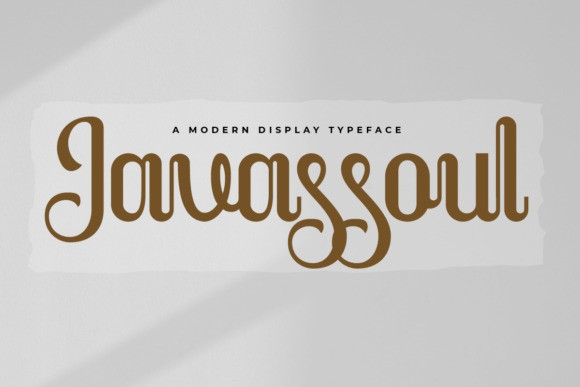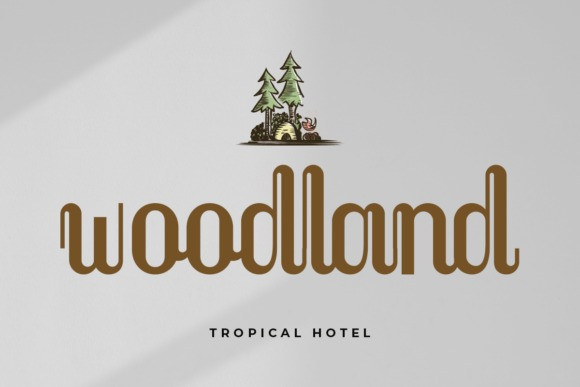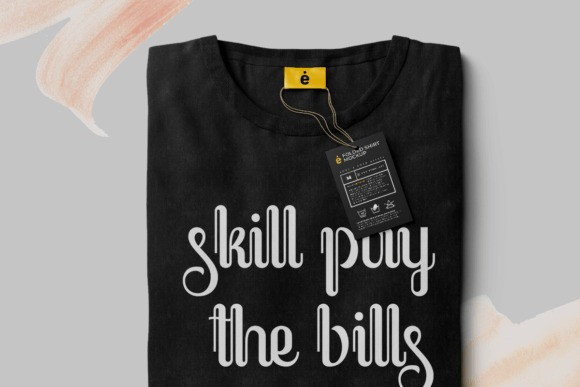
Javassoul Font
Javassoul is a very elegant and unique display font perfect for branding, logos, invitation, cards, headlines, magazines and more. Add it to any of your creative projects and it will seduce your audience with its impeccable style.